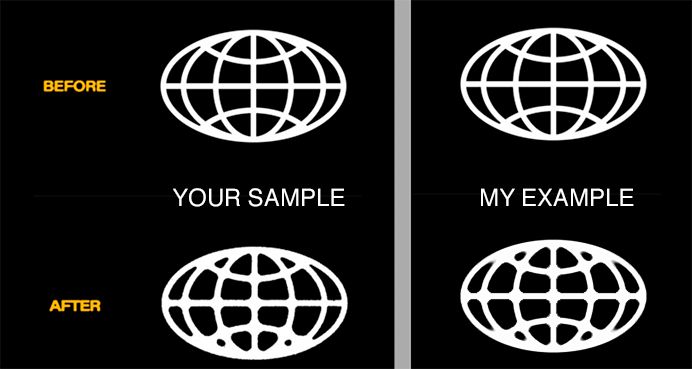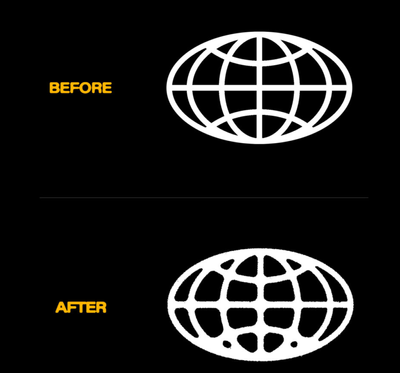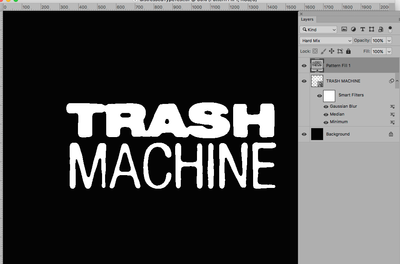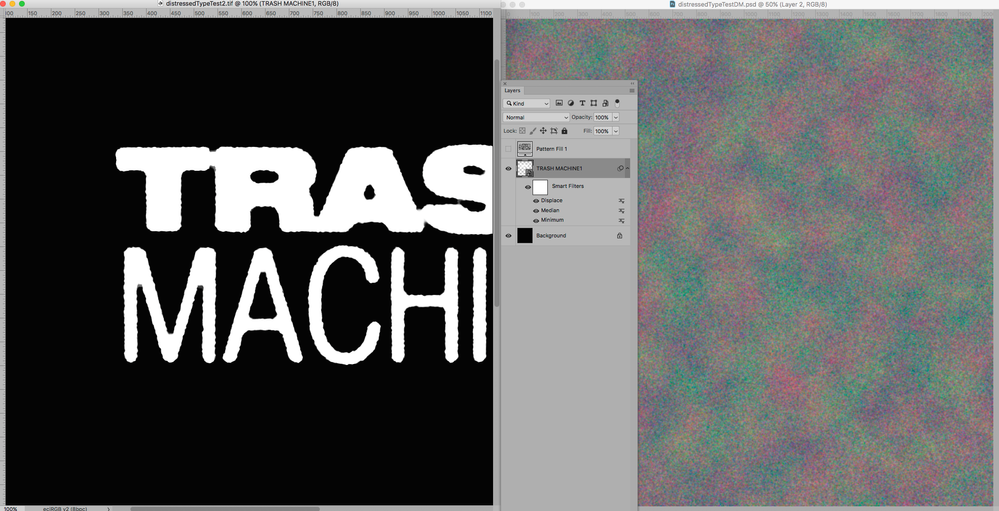
Create Vintage / Ink Bleed / Grunge effect for all Vectors and Font
Hi adobe guys, I was wondering if you can help me, I am looking to add this texture / effect to any type of vectors and fonts, it has a sort of Vintage/ Ink bleed / grunge / ink stamp bleed sort of effect to any vector on photoshop / illustrator, I just don't know how to get it looking like this (please find images of font below), I would like to use this effect on a project I am working on, any advice would be gratefully appreciated and how to get any sort of vector file looking like the following below.
Layer Styles, Smart Filters and Pattern Layers with Blend Modes can be used to distress originally sharp elements (like vector Smart Objects), but this is the Photoshop Forum, so if you are looking for final vector output this is not the ideal place/tool.
Filter > Noise > Dust & Scratches...Radius 4 pixels Threshold 0 levels
Then choose Curves and move the highlight endpoint horizontally slightly to increase contrast
Ravi, if Curves are troublesome for you, use Levels and move the highlight end slider gently to increase sharpness and contrast just a bit.
That's epic, thanks for this, seriously. I didn't realise that the filters "other" would show smart filters median and minimum which works perfectly but the Picture fill only works on a white text / font and won't work with any other colour as the picture fill is visible in other colours with the Hard Mix, any suggestions? I will try however to copy and past the same wording at the top and save as clipping mask ontop of the picture fill, hopefully this would work. Thank you btw you let me discover new filters I didn't think to use.
The Hard Mix-Pattern is in this case intended to »warp« the edges – that’s an effect you should also be able to achieve with the Displace Filter with an appropriate Displacement Map.
Hey Hannah, thank you ever so much for your reply! I did figure it out! but the Hard mix option on the font can only happen to white text only, the graphic element of the Picture Fill won't work on any other colour, I think I may need to copy and paste the font above and save as clipping mask. I have figured out the Median and Minimum which works wonderfully. but there must be a way to change the colour of the font without the picture fill ruining with it's visuals. Splitting the pack off of blk market would be a dream! have you tired this vintage effect and how far have you reached? Ravi
Hey! right, let me try the Displace as a smart filter and I will show you if that's alright with you, thank you so much for your continuous help!
An alternative to consider which allows you to stay in Text /Vector shape is to add a layer style with a small stroke set to Dissolve Blend mode
THIS IS THE BEST AND MOST REALISTIC WAY TO ACHIEVE THIS